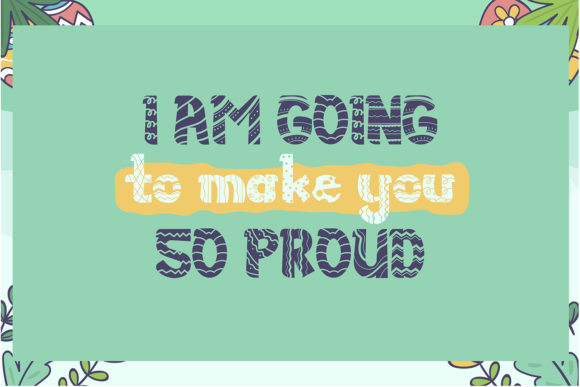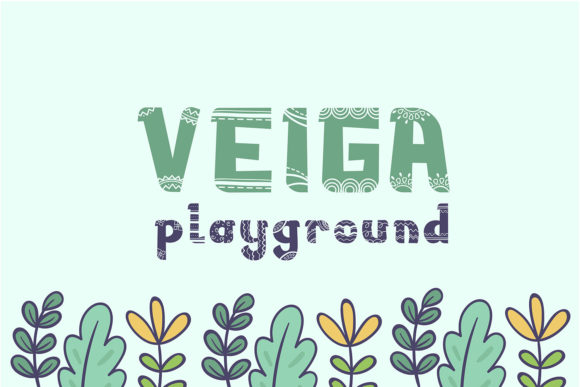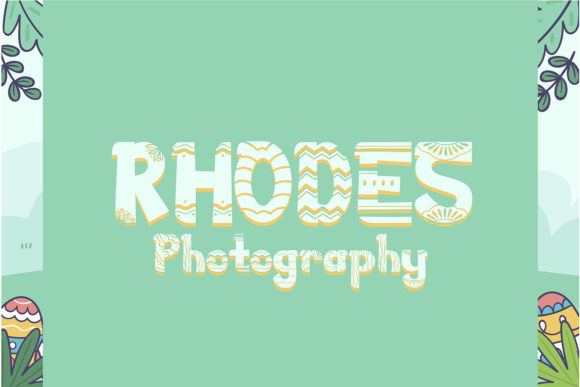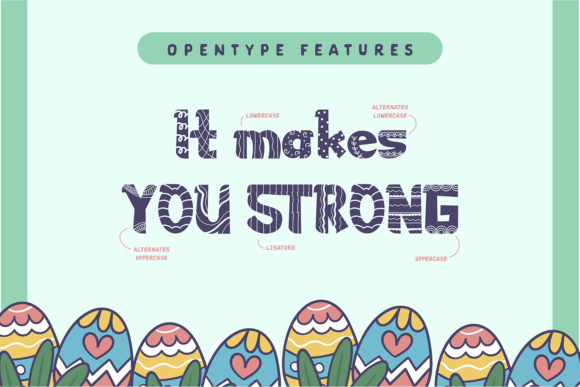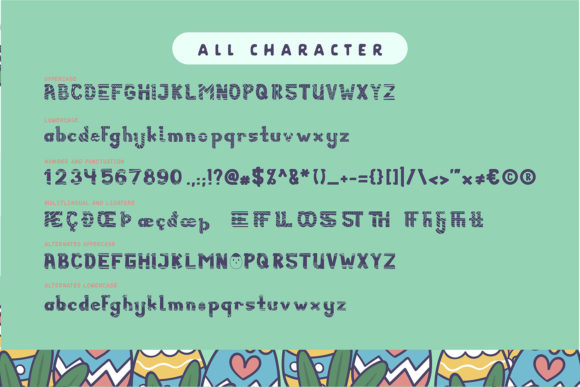
The Hunt for the Perfect Easter-Inspired Font
I’ll never forget the time I was working on a wedding invitation design for a client’s spring-themed wedding. The color palette was set, the graphics were in place, but something was missing – the perfect font. I scoured the internet, tried out dozens of fonts, but none seemed to capture the essence of Easter and spring. That was until I stumbled upon the Hidden Easter Font. ✨
A Beautiful Decorative Font for Spring
The Hidden Easter Font is a beautiful decorative font that was inspired by the spring holidays. It features elegant and intricate designs, perfect for adding a touch of whimsy and charm to your designs. **It’s ideal for wedding invitations, greeting cards, branding materials, business cards, quotes, posters, and many more!**
So, what do I love about the Hidden Easter Font? 🤔 Here are a few things:
- ✨ Elegant and intricate designs that are perfect for spring-themed designs
- 💕 Beautifully crafted to evoke a sense of whimsy and charm
- 🎉 Versatile and can be used for a wide range of design projects
While the Hidden Easter Font is a stunning font, there are a few small quirks to be aware of:
- ⚠️ Some of the letters have a slightly condensed design, which can make them appear a bit cramped at smaller font sizes
- 🤔 The font doesn’t have a bold weight, which can limit its use for certain design projects
The Designer Inspiration Behind Hidden Easter
The Hidden Easter Font was inspired by the beauty of spring and the Easter holiday. The designer wanted to create a font that would capture the essence of this special time of year, with its intricate designs and elegant lines. The result is a font that’s perfect for adding a touch of whimsy and charm to your designs.
| Q: What type of designs is the Hidden Easter Font best suited for? | A: The Hidden Easter Font is perfect for wedding invitations, greeting cards, branding materials, business cards, quotes, posters, and more. |
| Q: Does the Hidden Easter Font come with a bold weight? | A: No, the Hidden Easter Font does not come with a bold weight. However, you can use the font’s stylistic alternates to create a bold effect. |